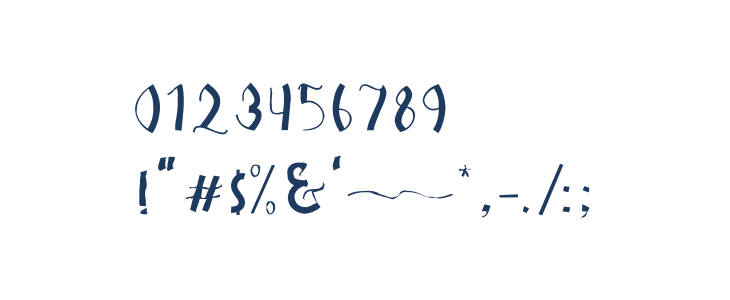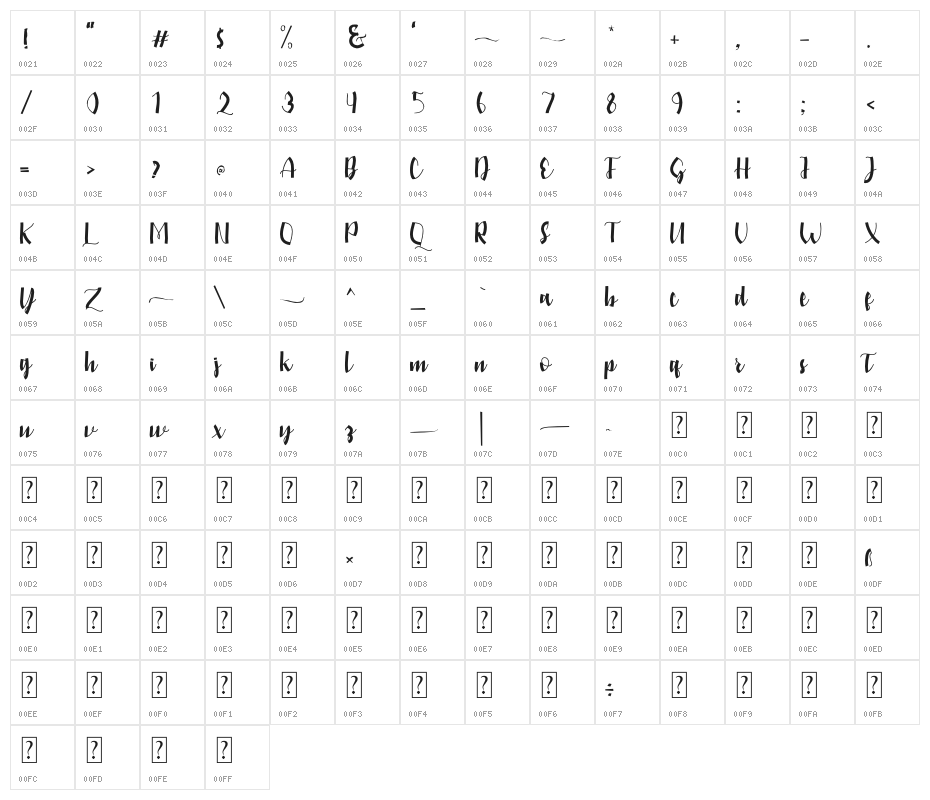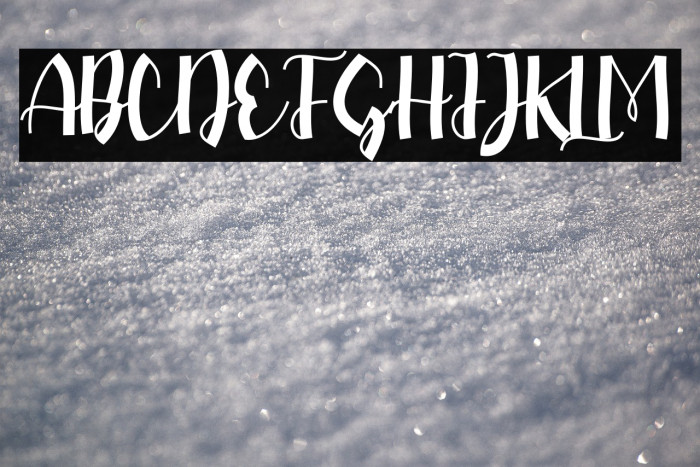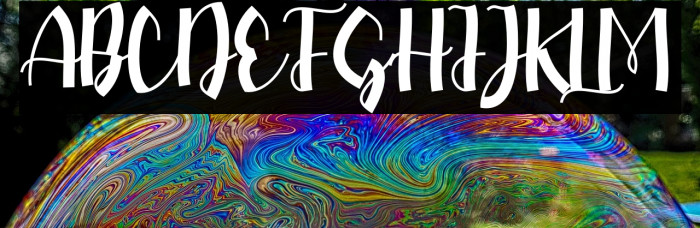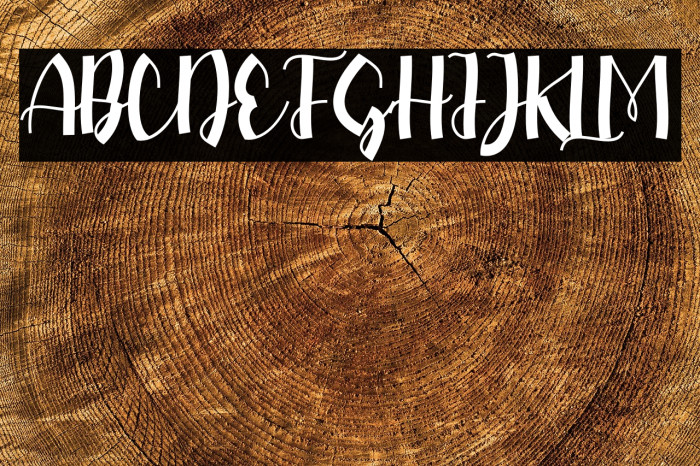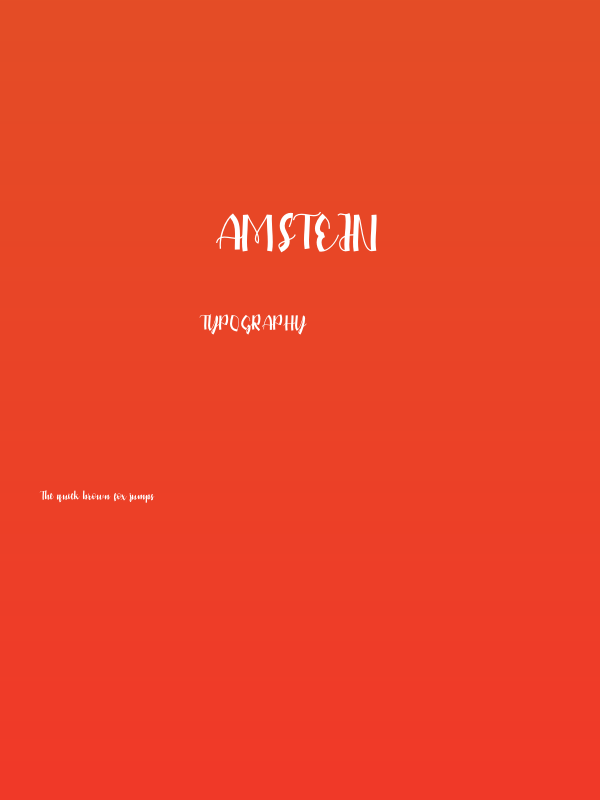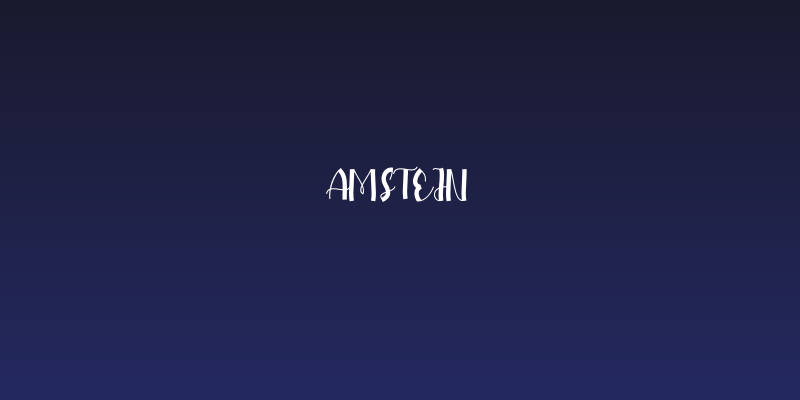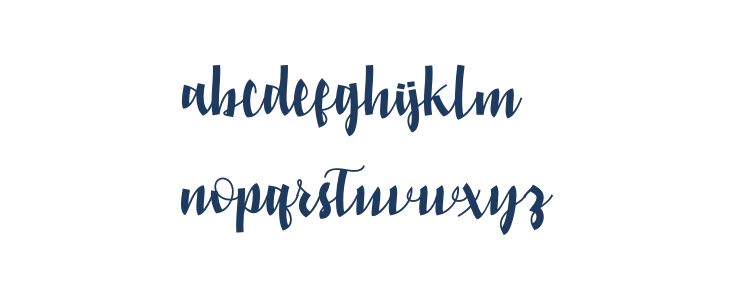
amstein Font
amstein Description
This font exhibits a dynamic and expressive style, characterized by its fluid, cursive strokes and artistic flair. The uppercase letters are bold and sweeping, with a distinct calligraphic influence that adds a sense of movement and elegance. The lowercase letters maintain this fluidity, offering a harmonious blend of thick and thin strokes that create a visually engaging texture. The numerals are uniquely styled, maintaining the font's overall artistic theme, while the special characters are crafted with similar attention to detail, ensuring consistency across all glyphs. This font's design is both modern and decorative, making it suitable for a variety of creative applications.